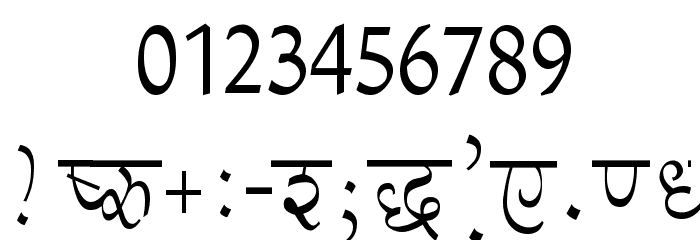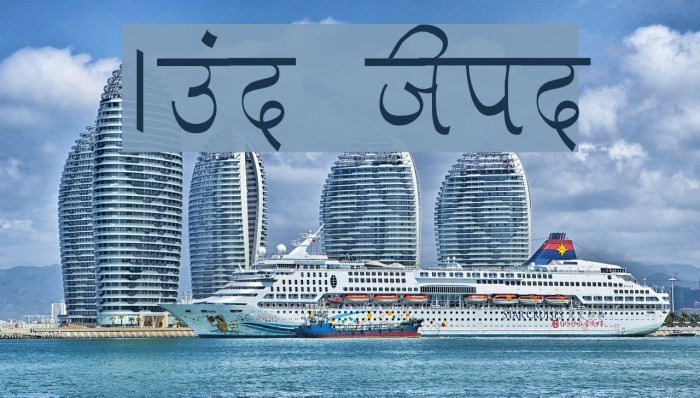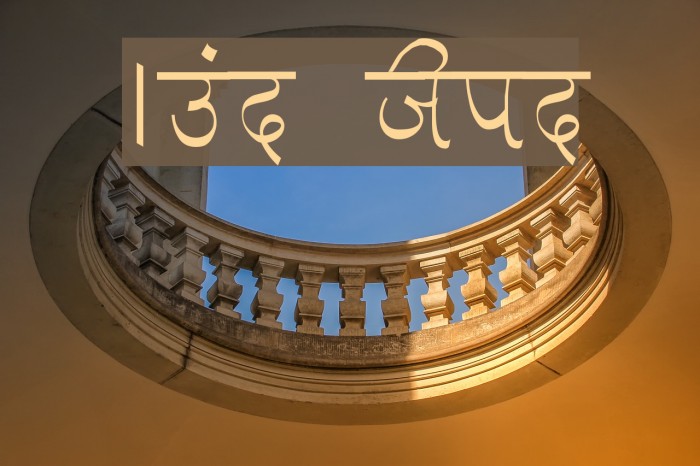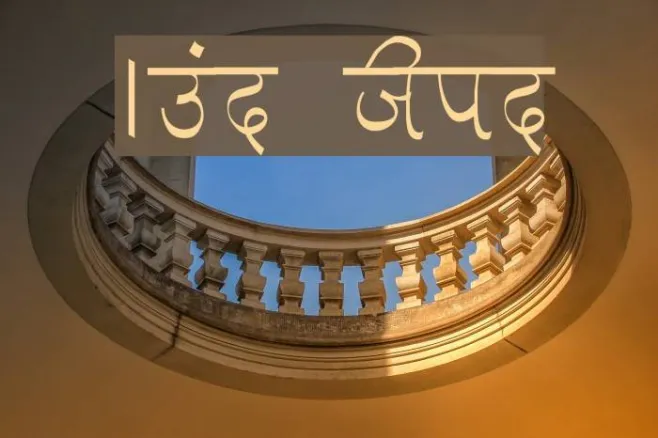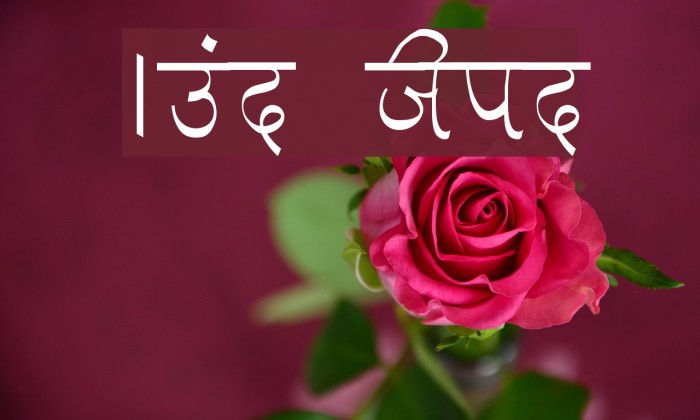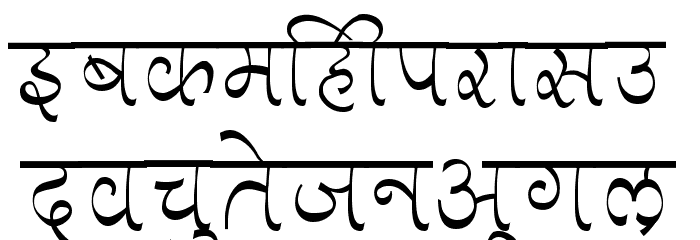
Aman Thin Font
Aman Thin Description
This font features a distinct and elegant design, characterized by its thin and graceful strokes. The characters exhibit a traditional script style, with a harmonious blend of curves and straight lines. The font maintains a consistent line weight throughout, giving it a refined and sophisticated appearance. The numerals are clear and legible, matching the overall aesthetic of the script. Special characters are designed with the same attention to detail, ensuring a cohesive look across all elements. This font is suitable for projects that require a touch of elegance and tradition.
| Overall Style | Traditional |
| Use Case | Headlines, Decorative text, Formal documents |
| Proposed Projects | Ideal for wedding invitations, formal documents, cultural publications, and decorative headings. |